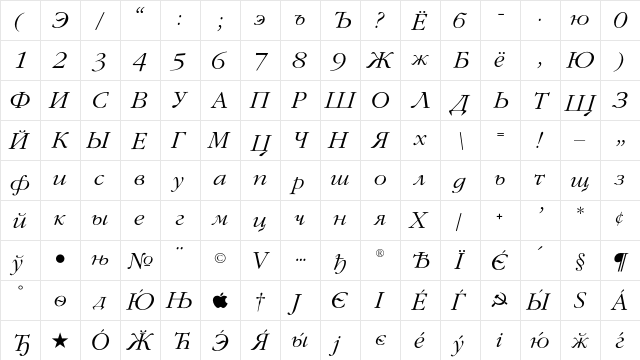
GaramondFLFCyrillic Italic Font Preview
GaramondFLFCyrillic Italic
GaramondFLFCyrillic Italic Font Details
Design Context for GaramondFLFCyrillic Typeface
GaramondFLFCyrillic offers clean, dependable letterforms without strong stylistic allegiance, making it a practical choice for designers who need flexibility. Its italic angle brings a sense of urgency and motion to the letterforms.
Pro Tip: Try GaramondFLFCyrillic for annotation and caption copy alongside an upright companion — the contrast in angle creates a dynamic but ordered typographic system.